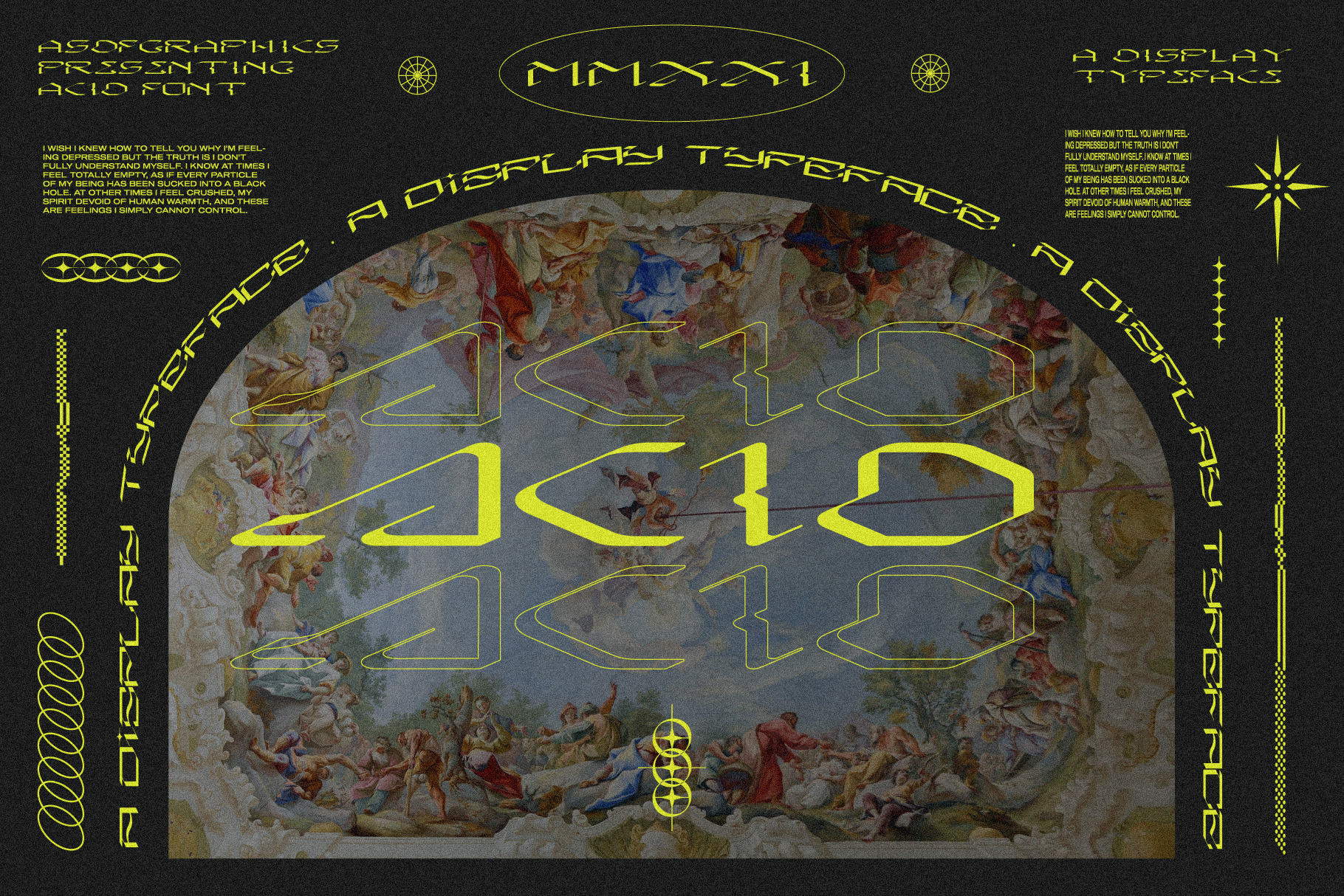
ACID FONT - ACID GRAPHICS TYPOGRAPHY
ACID FONT - ACID GRAPHICS TYPOGRAPHY TECHNO RAVE 2022 Typeface.
A contemporary hybrid of blackletter and serif, retaining the elegance and style. Made for text display purposes, Acid Typeface brings a modern , gothic , sharp and strong impression to your design. With a bold acid style, suitable as the main text / header text on a poster , music artworks , website, t-shirt print, book cover etc.